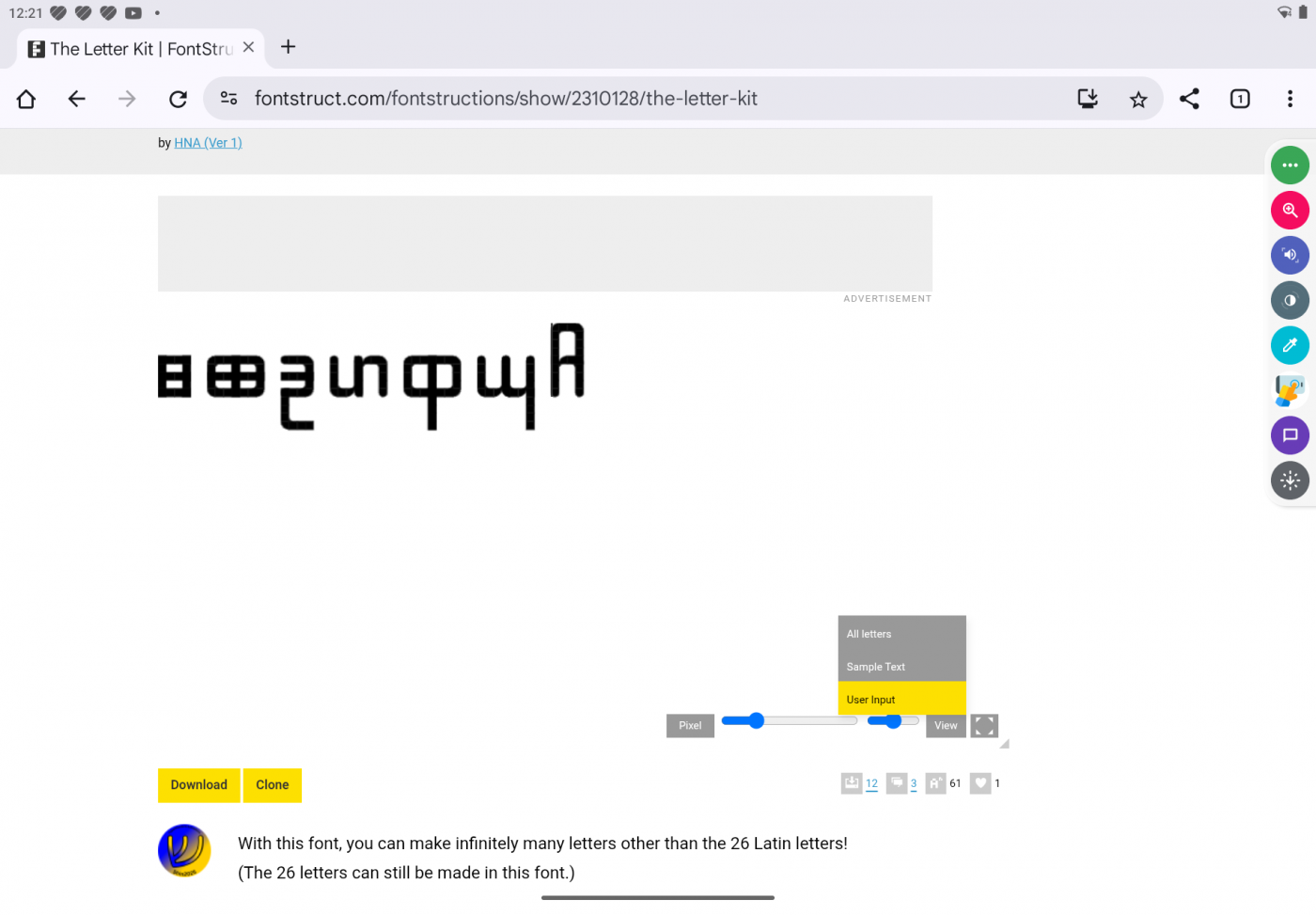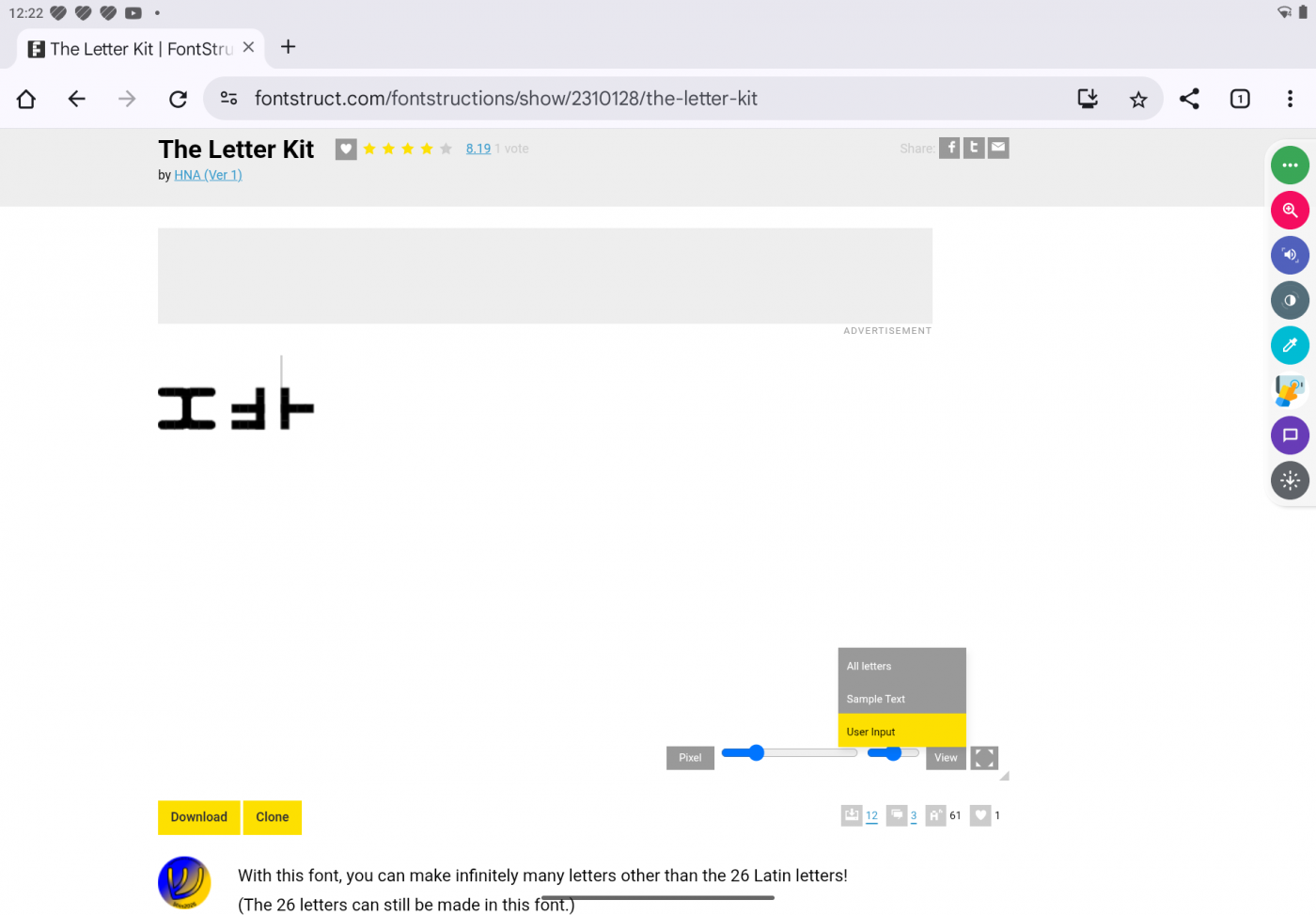
• With this font, you can make infinitely many letters other than the 26 Latin letters! (The 26 letters can still be made in this font.)
Here are some examples:
"1n  1l  XE tv   g   tv  nHQ  l  1n  nHQ  l  n  nHQ  P"
"1l  nHQ  E1 E1 m  P1"
"g  c1  n  a0  nHQ  E5G  a6  l1  XE E3X n1E  E1"
Current characters used:
Lowercase: a b c d e f g h i j k l m n o p q r s t u v w x y
Capital: A B C D E F G H I J K L M N O P Q R S T U V W X
Numeral: 0 1 2 3 4 5 6 7 8 9
Capitals and numerals behave as diacritics, and the lowercases behave as the bases (for example, "nHQ" represents the lowercase E in this font) and yes, any base can merge (for example, "tv" represents the lowercase S in this font).
Red text representing the black text shown in the image below (Grid used for exact representations):